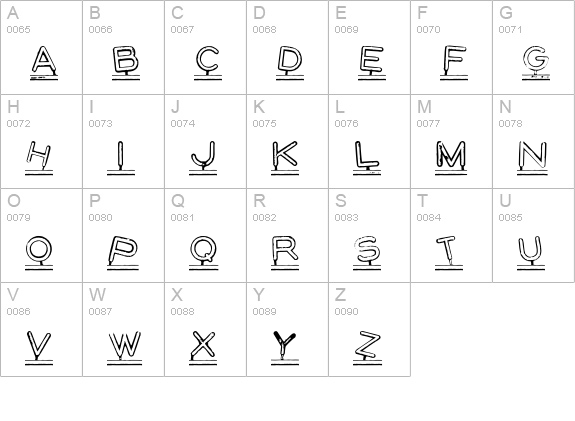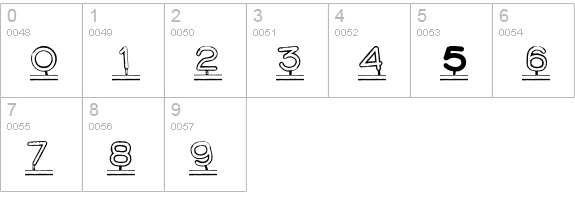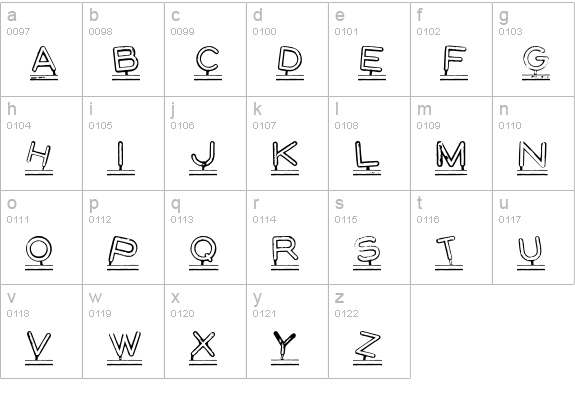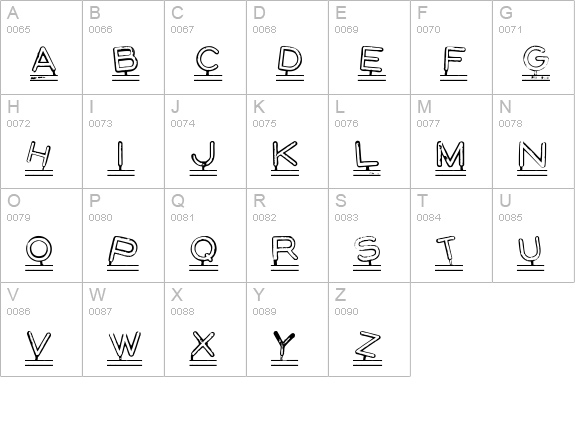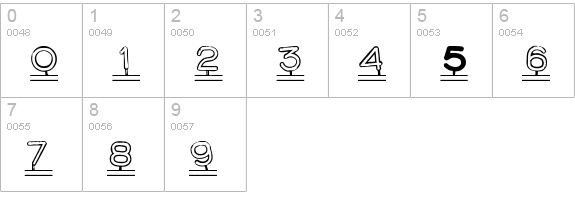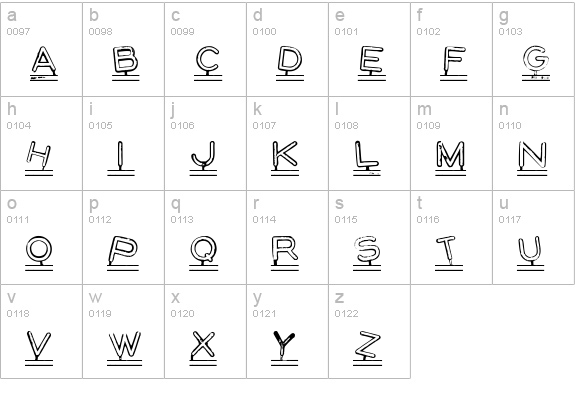
MontaplexOutline Font Details
MontaplexOutline font is a modern and stylish typeface that is sure to catch the eye with its sleek and sophisticated design. The sharp lines and geometric shapes of this font give it a contemporary edge, making it perfect for a wide range of projects, from branding to editorial design. What sets MontaplexOutline font apart is not only its striking appearance but also the fact that it is available for free. You can easily download this font at FontsMarket.com and start using it in your projects right away. Whether you're looking to add a touch of elegance to your designs or make a bold statement, MontaplexOutline font is a versatile choice that won't disappoint.